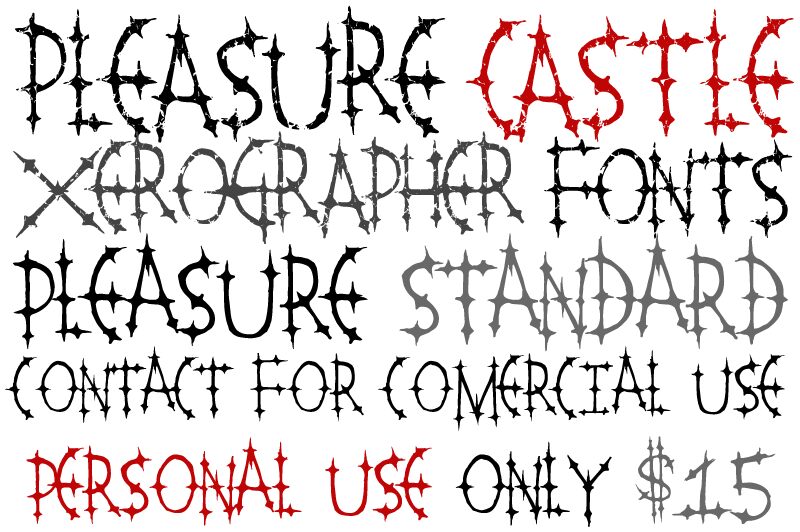
Pleasure Castle by Xerographer Fonts is a free modern Gothic display font with a jagged, theatrical silhouette. Its tall capitals shift between broad arches and needle-thin strokes, with thornlike points interrupting both the tops and feet. The irregular joins keep the lettering tense and unpredictable.
Packaging for dark cosmetics or specialty drinks can use its sharp ornament to build a dramatic product face, and the same style suits horror posters and metal merchandise. In game title art or event graphics, the extended spikes can become part of a castle crest, thorn border, or sinister decorative emblem instead of sitting as ordinary type.